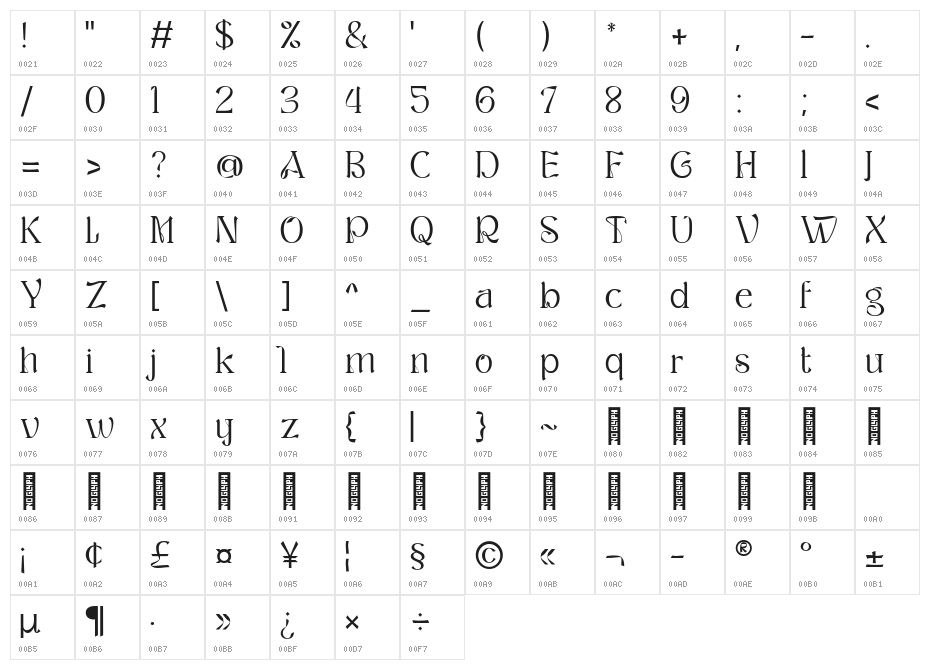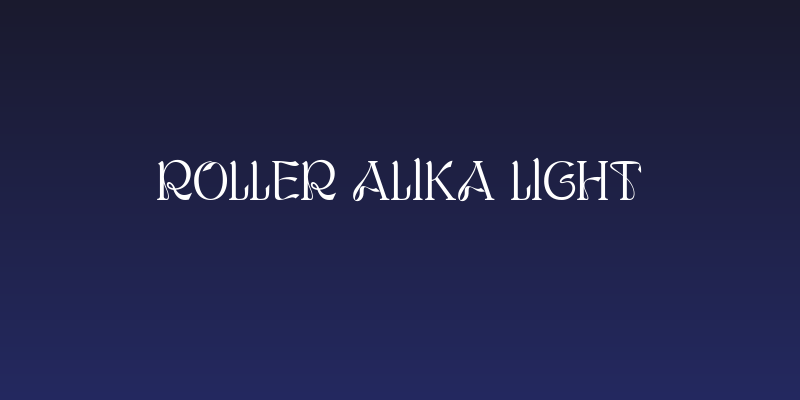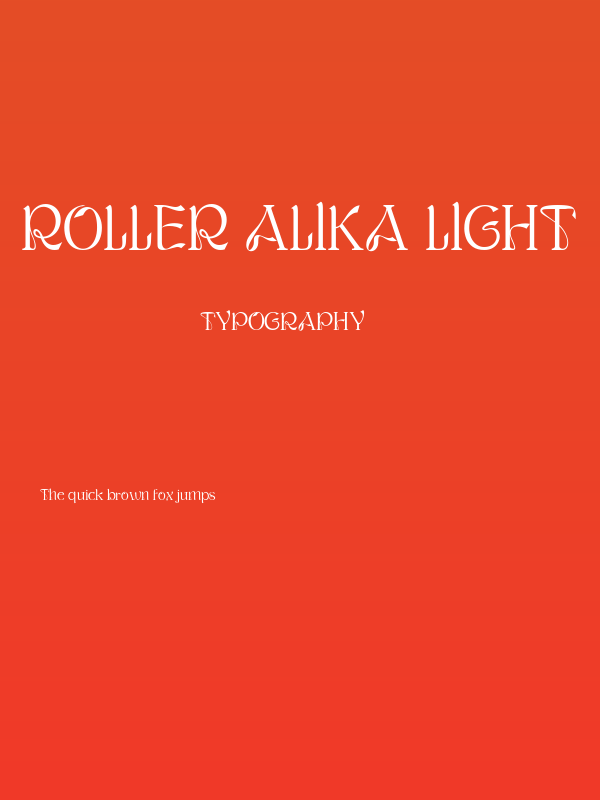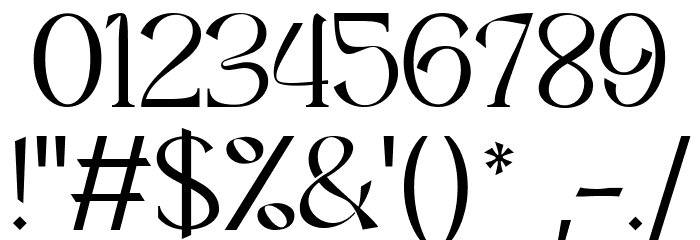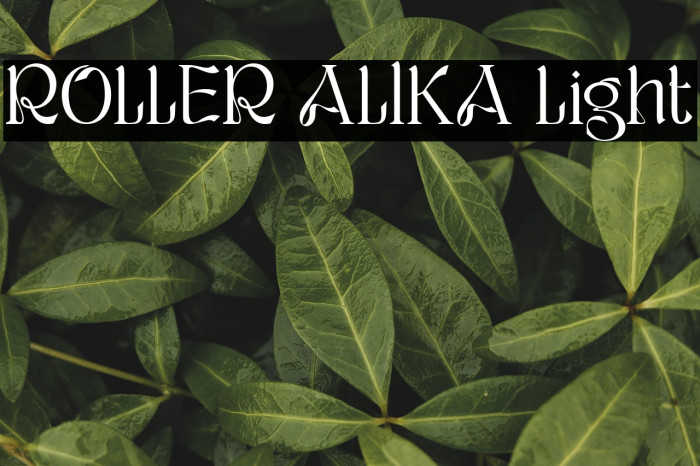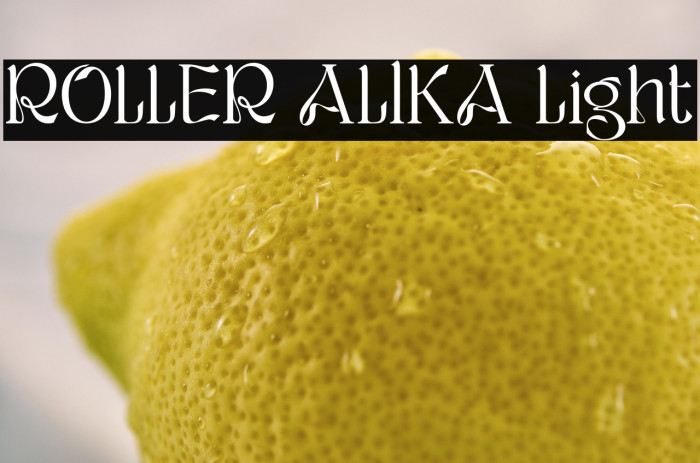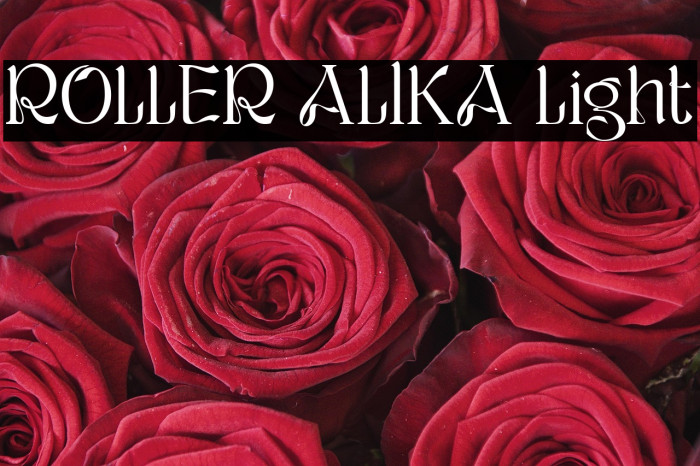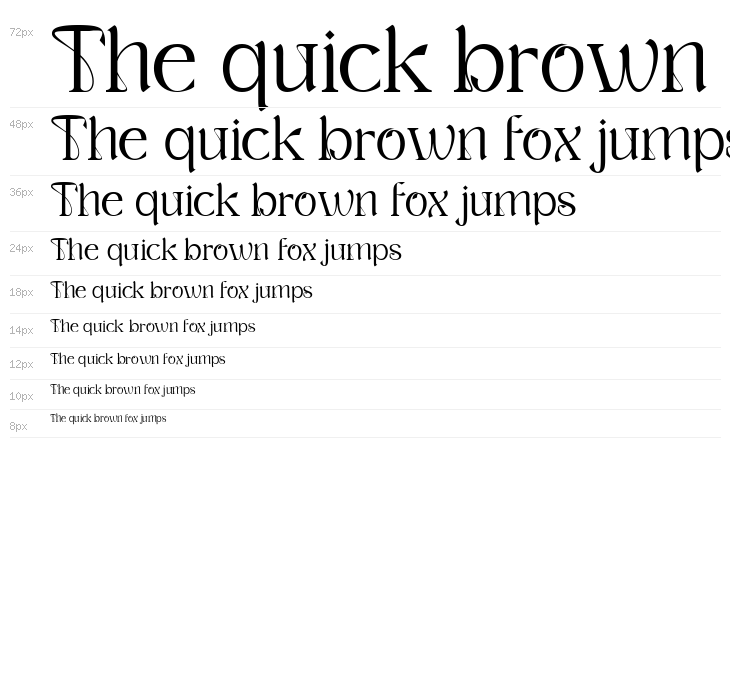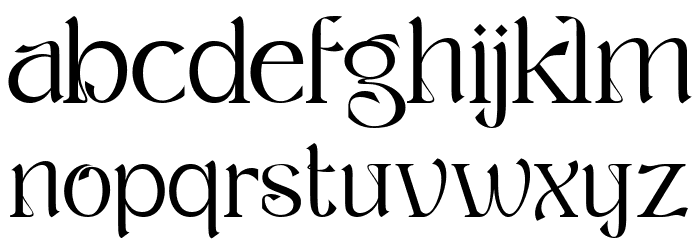
ROLLER ALIKA Light Font
ROLLER ALIKA Light Description
This font exhibits a unique blend of modern and classic elements, characterized by its elegant curves and sharp edges. The uppercase letters are bold and striking, with a distinctive flair that adds a touch of sophistication. The lowercase letters maintain a consistent style, offering a harmonious balance between readability and artistic expression. The numerals are clear and well-defined, making them suitable for various applications. Special characters are thoughtfully designed, maintaining the overall aesthetic of the font. This font's versatility makes it ideal for creative projects that require a touch of elegance and modernity.